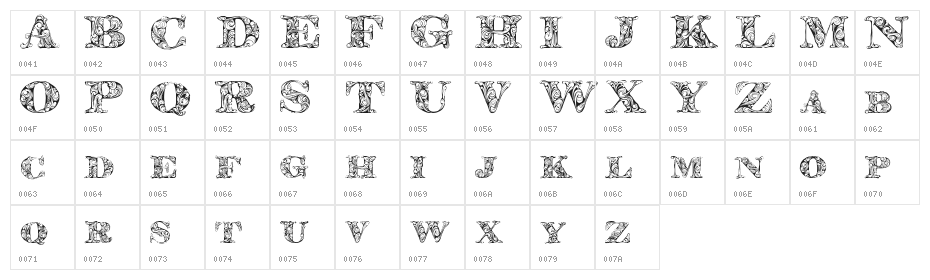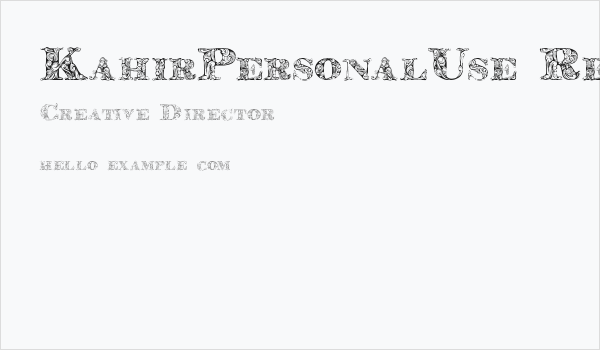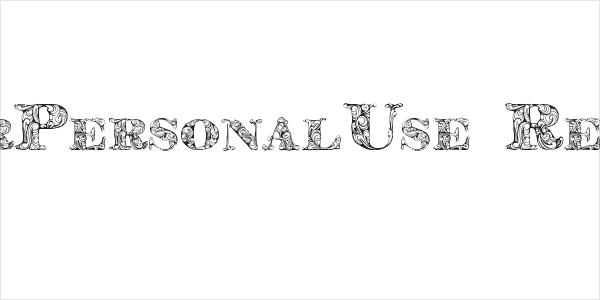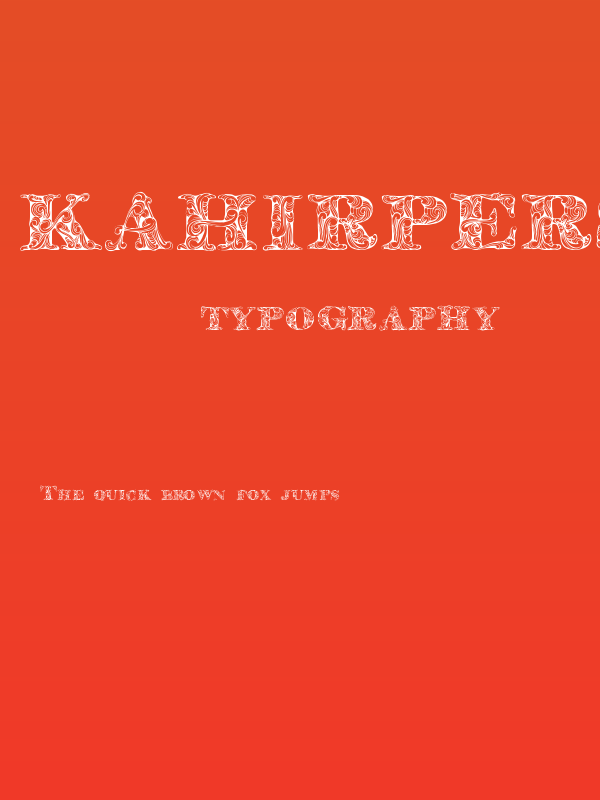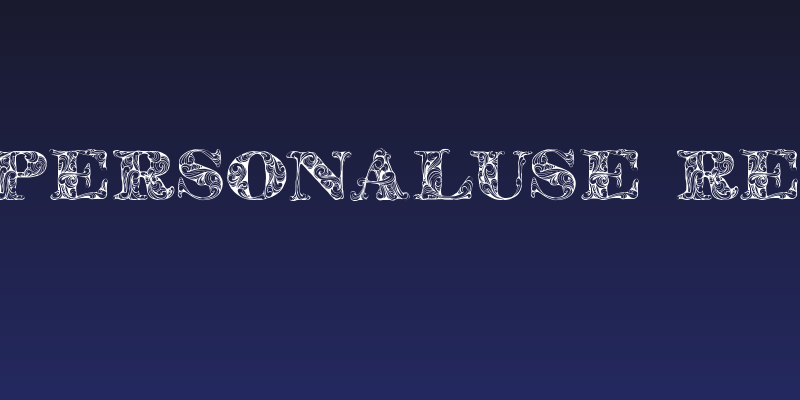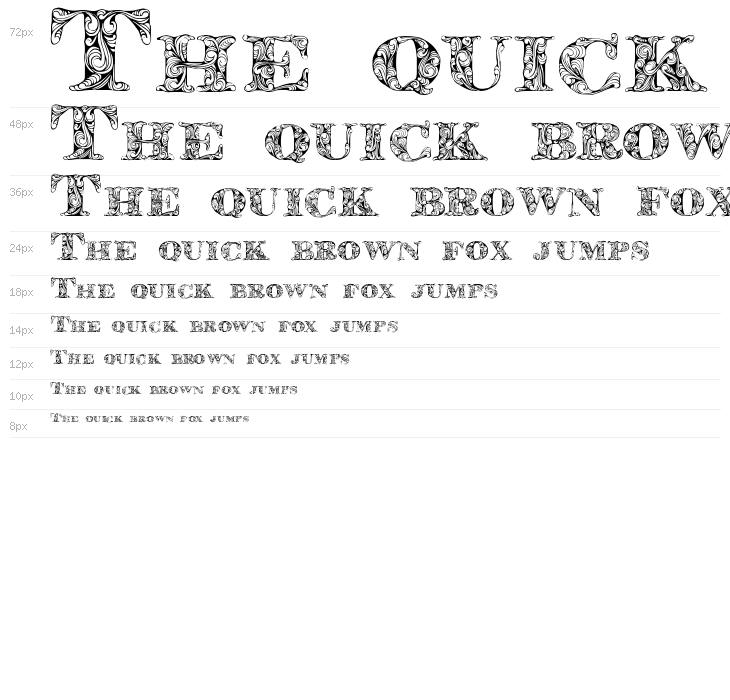
KahirPersonalUse Regular Font
KahirPersonalUse Regular Description
This font is a highly decorative and ornate typeface, featuring intricate floral and vine-like patterns within each character. The elaborate design gives it a vintage and artistic feel, making it stand out as a unique display font. The uppercase letters are embellished with detailed motifs that create a sense of elegance and sophistication. This font is not suitable for body text due to its complexity but excels in creating eye-catching headlines or artistic designs. The intricate details require careful consideration of size and spacing to ensure readability.
| Overall Style | Vintage, Decorative |
| Proposed Projects | Ideal for wedding invitations, vintage-themed posters, artistic book covers, and decorative signage. |